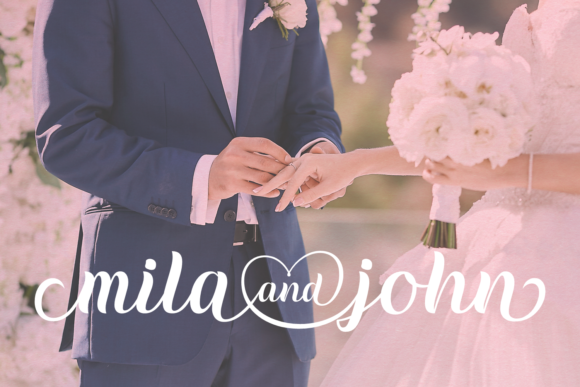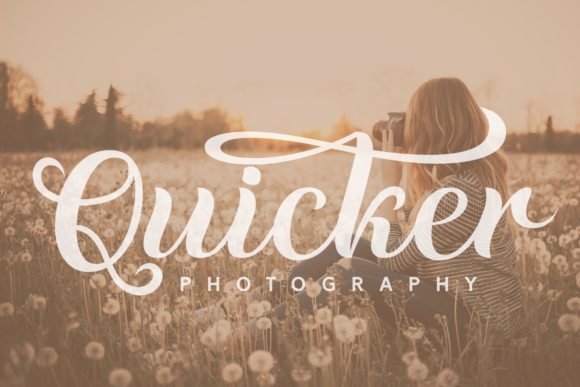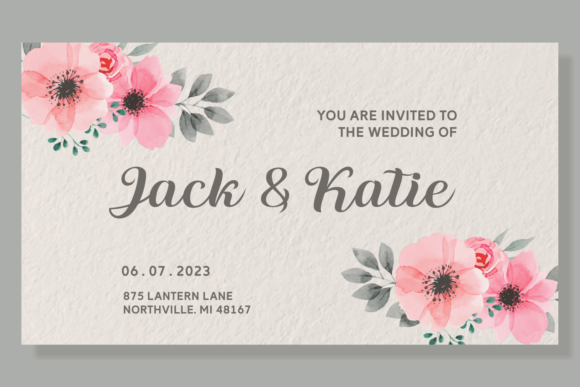
Carlyn Font
Carlyn is a stunning handwritten font featuring beautifully rounded characters and a cursive style. It is perfect for wedding designs, birthday cards, business cards, invitations, branding, apparel, and more.